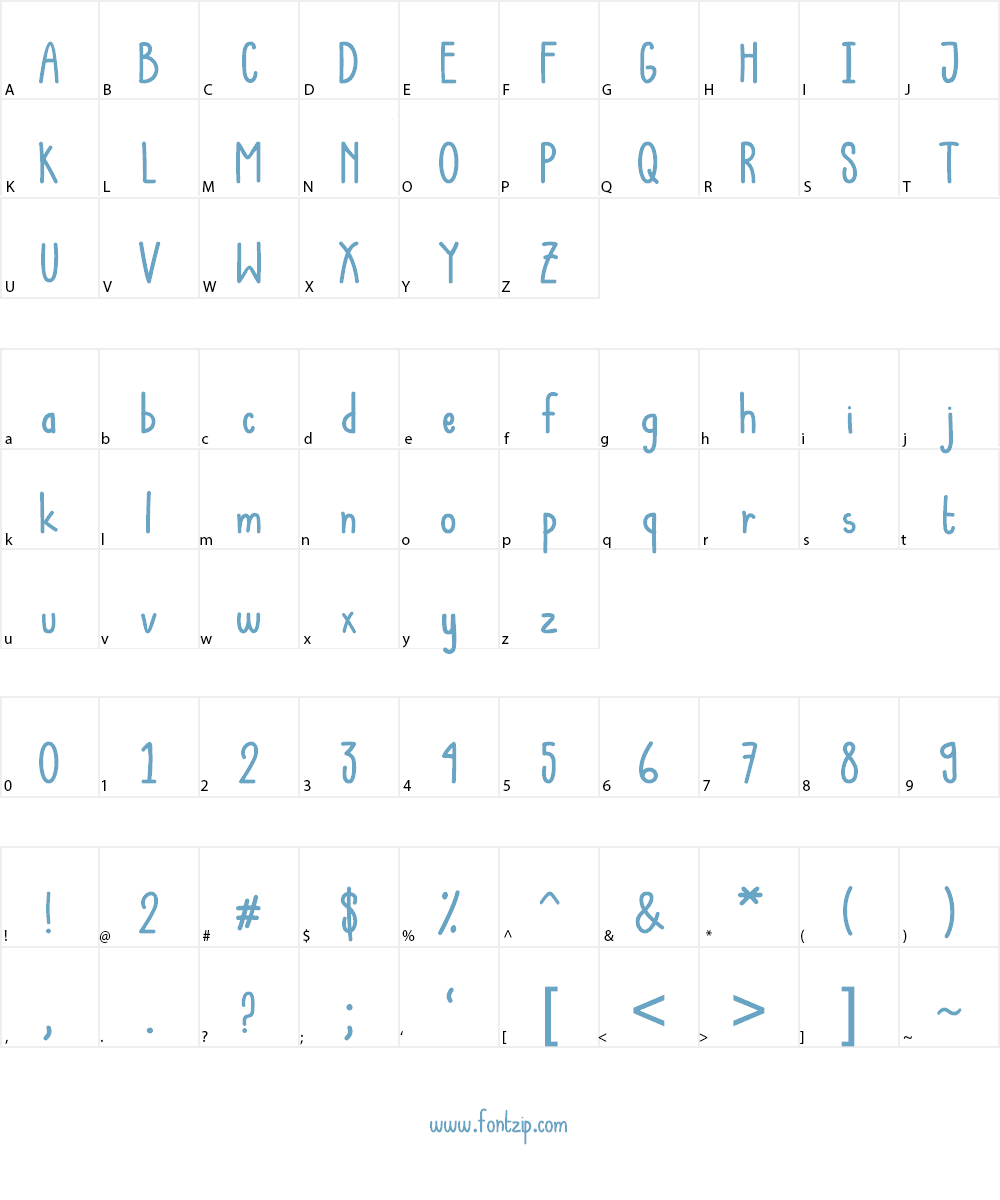
New Student font is a cute and playful handwritten font. This font also has a cartoonis style that good for sticker, poster and banner.
This is my first font I made
So i give name New Student.